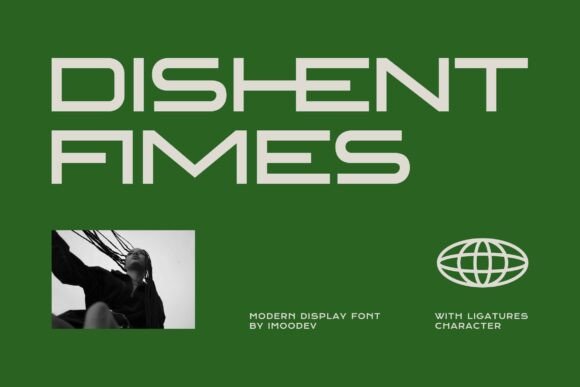
Introducing Dishent Fimes Font: The Ultimate Typeface for Modern Creatives
In the world of typography, a good font can make all the difference in creating a lasting impression. For modern creatives, finding the perfect typeface that combines style, versatility, and impact can be a daunting task. This is where Dishent Fimes comes in – a futuristic and extended typeface designed to help you make a strong visual statement. In this article, we’ll dive into the world of Dishent Fimes, exploring its unique features, design inspiration, and uses.
What is Dishent Fimes Font?
Dishent Fimes is a geometric typeface with industrial undertones, carefully crafted to strike the perfect balance between contemporary minimalism and expressive detail. This sleek and avant-garde font is perfect for creatives who want to add a touch of sophistication and futurism to their projects. Whether you’re working on magazine spreads, branding systems, poster designs, or editorial headlines, Dishent Fimes is the ideal choice.
One of the standout features of Dishent Fimes is its extended character set, which includes a wide range of glyphs, swashes, and alternate characters. This means you can experiment with different styles and variations, giving your text a unique and personalized touch. The font is also PUA-encoded, making it easy to access all the special characters and glyphs.
The Design Inspiration Behind Dishent Fimes
The design of Dishent Fimes is rooted in the principles of modern minimalism and industrial design. The font’s geometric structure gives it a clean and futuristic look, while the industrial undertones add a touch of ruggedness and edginess. The result is a typeface that feels both contemporary and forward-thinking.
The design team behind Dishent Fimes drew inspiration from a range of sources, including modern architecture, technological advancements, and innovative design trends. The goal was to create a font that would reflect the fast-paced and rapidly evolving nature of modern design, while also providing a timeless and versatile solution for creatives.
Uses and Applications of Dishent Fimes Font
Dishent Fimes is a versatile typeface that can be used in a wide range of applications, from print and digital media to branding and advertising. Here are some of the ways you can use Dishent Fimes to elevate your designs:
- Magazine Spreads: Add a touch of sophistication and elegance to your magazine spreads with Dishent Fimes. The font’s clean lines and geometric structure make it perfect for headlines, subheadings, and body text.
- Branding Systems: Create a strong visual identity for your brand with Dishent Fimes. The font’s industrial undertones and futuristic look make it ideal for tech, fashion, and lifestyle brands.
- Poster Design: Make a bold statement with Dishent Fimes in your poster designs. The font’s geometric structure and expressive detail make it perfect for creating eye-catching headlines and titles.
- Editorial Headlines: Add a touch of glamour and sophistication to your editorial headlines with Dishent Fimes. The font’s sleek and avant-garde look makes it perfect for fashion, lifestyle, and entertainment publications.
Key Features of Dishent Fimes Font
Dishent Fimes comes with a range of features that make it a versatile and practical typeface for modern creatives. Here are some of the key features:
- Extended Character Set: The font includes a wide range of glyphs, swashes, and alternate characters, giving you plenty of options for customization.
- Geometric Structure: The font’s geometric structure gives it a clean and futuristic look, perfect for modern designs.
- Industrial Undertones: The industrial undertones add a touch of ruggedness and edginess to the font, making it perfect for bold and avant-garde designs.
Why Choose Dishent Fimes Font?
With so many typefaces available, why choose Dishent Fimes? Here are some reasons why Dishent Fimes stands out from the crowd:
- Unique Design: Dishent Fimes has a unique and distinctive design that sets it apart from other typefaces.
- Versatility: The font is versatile and can be used in a wide range of applications, from print and digital media to branding and advertising.
- Ease of Use: Dishent Fimes is easy to use and comes with a range of features that make it practical for modern creatives.
- High-Quality: The font is high-quality and comes with a range of features that make it perfect for professional designs.
In conclusion, Dishent Fimes is a futuristic and extended typeface designed for modern creatives who want to make a strong visual impact. With its geometric structure and industrial undertones, this typeface strikes the perfect balance between contemporary minimalism and expressive detail. Whether you’re working on magazine spreads, branding systems, poster designs, or editorial headlines, Dishent Fimes is the ideal choice. With its range of features, versatility, and unique design, Dishent Fimes is a typeface that will elevate your designs and help you stand out from the crowd.